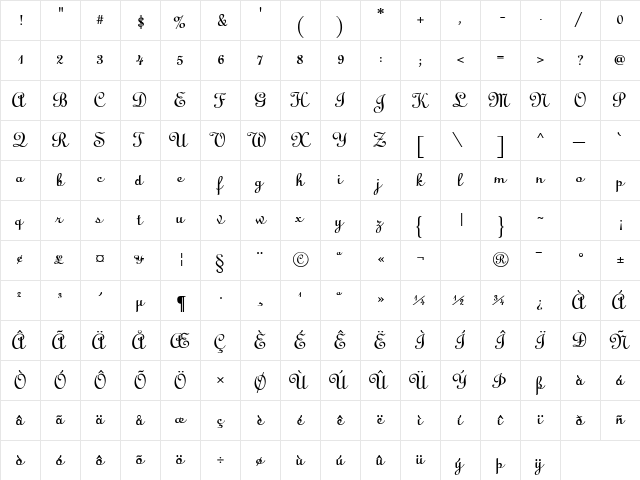
Cathedral Bold
Design Context for Cathedral Typeface
Cathedral takes a measured approach to typography — its balanced proportions and neutral character make it a reliable workhorse for both digital and print work. Its bold stroke weight gives it real presence on the page.